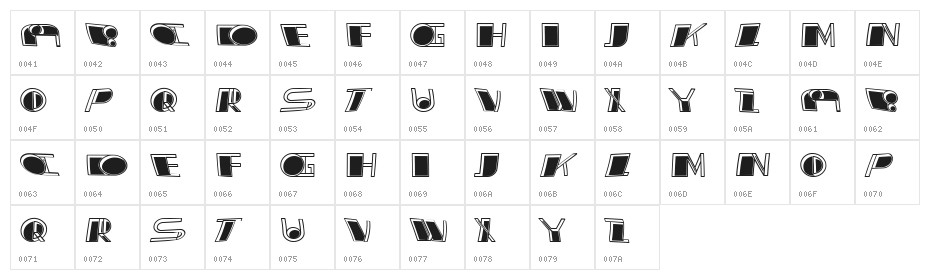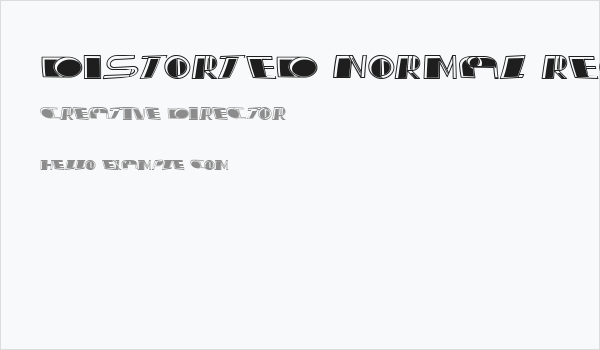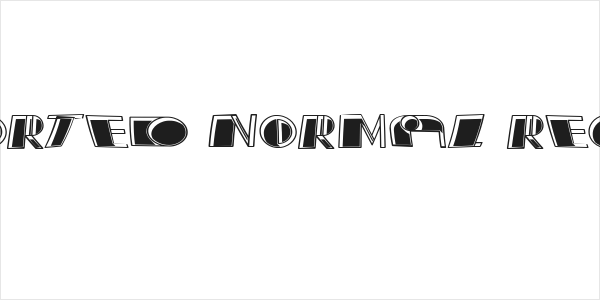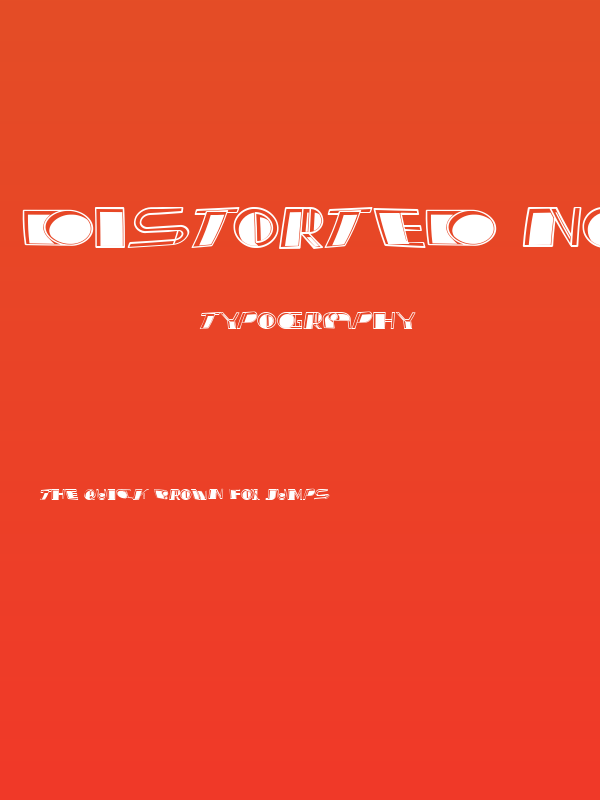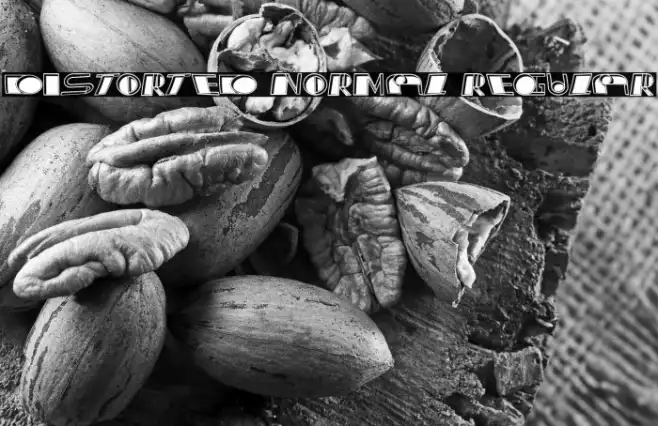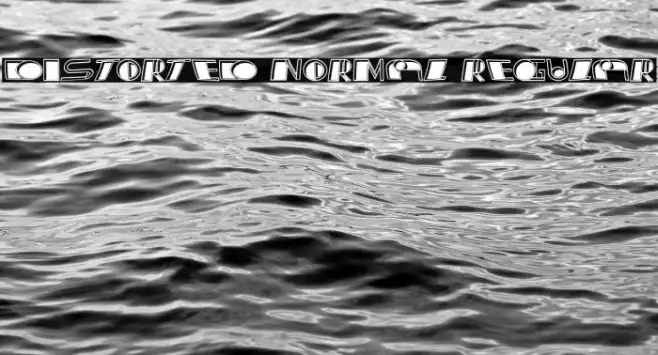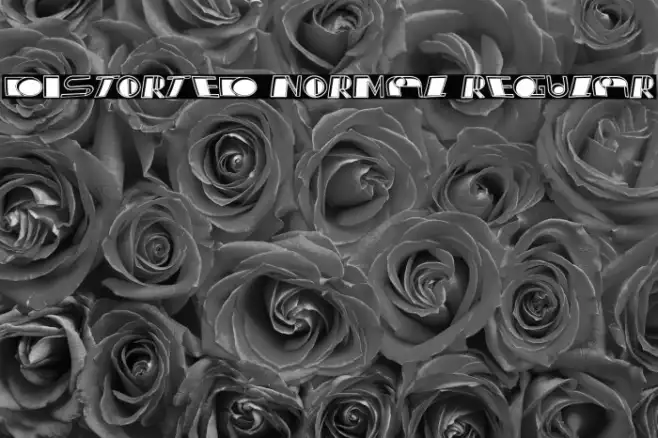
Distorted Normal Regular Font
Distorted Normal Regular Description
This font features a unique, distorted style with a modern twist. Each character is designed with a combination of solid and outlined elements, creating a dynamic and eye-catching appearance. The uppercase letters exhibit a playful distortion, with varying line thicknesses and unexpected angles, giving the font a futuristic and experimental feel. The lowercase letters maintain this theme, offering a cohesive look across the alphabet. The numbers and special characters are similarly styled, ensuring consistency throughout. This font's distinct design makes it suitable for creative and bold projects where a standout typeface is desired.
| Proposed Projects | Ideal for album covers, posters, branding, and digital art projects. |